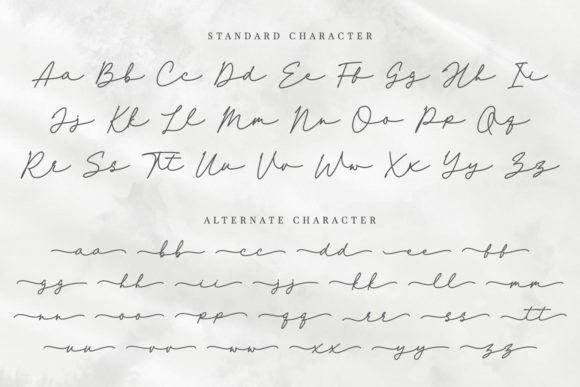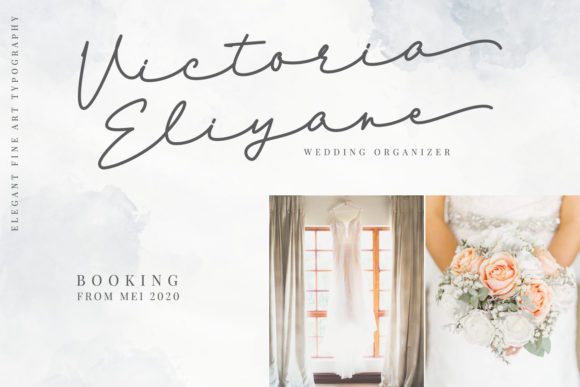
Mirela Charis Font
db-ku.com - Script & Handwritten -- Mirela Charis is a unique cursive font. It is perfect for signatures and logos. Fall in love with its sweet look!